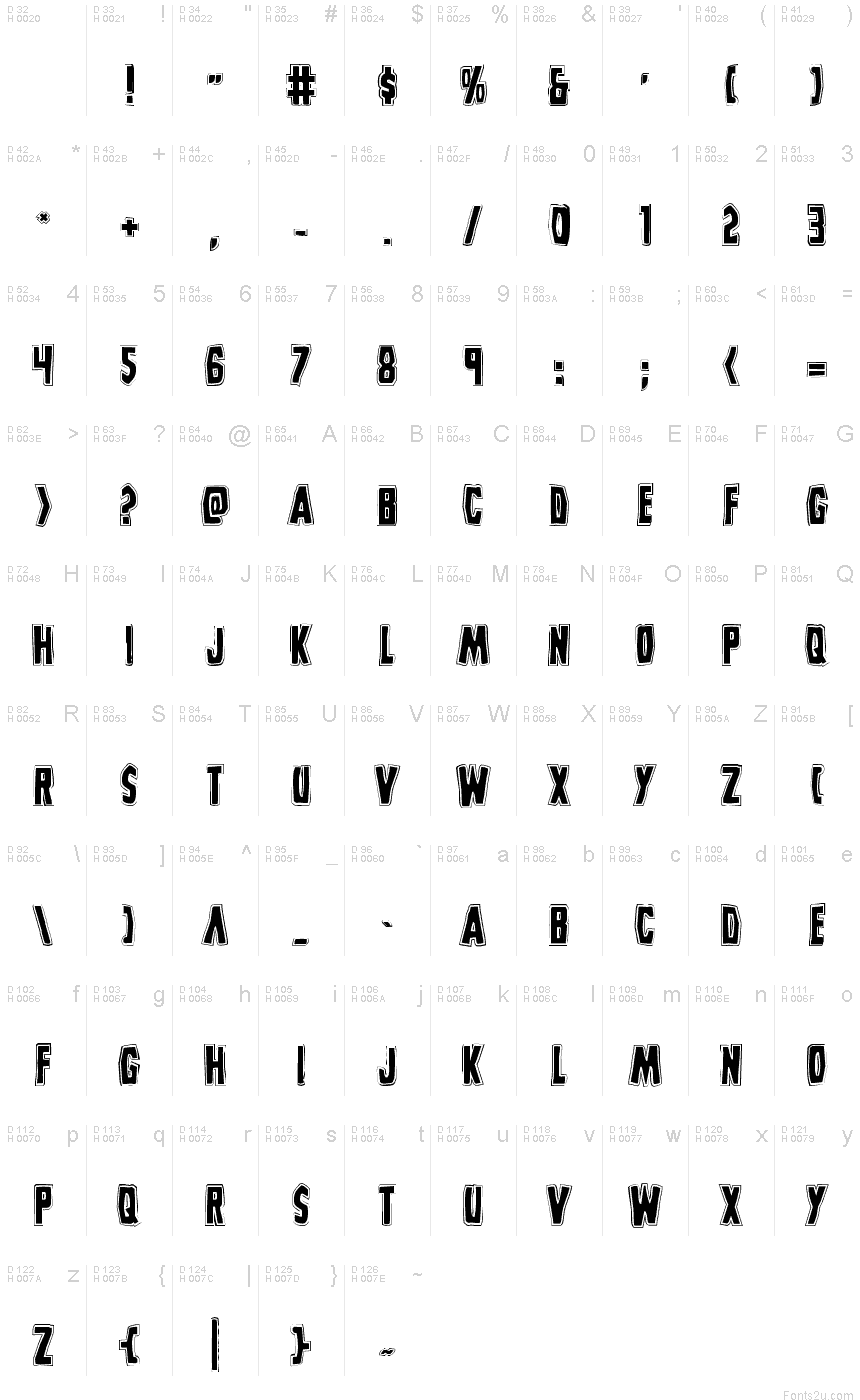
Grim Ghost College, a free cartoon display font from Iconian Fonts in 2011, turns collegiate lettering into something lanky and unruly. Its tall capitals crowd together with uneven widths and sharply pinched curves. The doubled contour looks roughly cut by hand.
The style suits audiences drawn to school comedy, sports spoofs, and offbeat campus events. It can also shape merchandise graphics and animated title cards. Its most convincing role is a comic varsity poster.
Grim Ghost includes a full character set and the euro symbol.